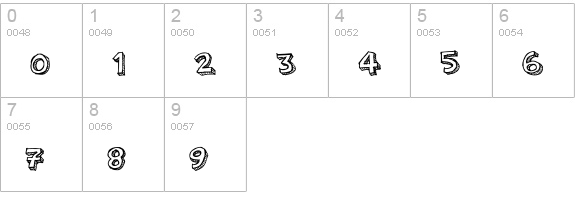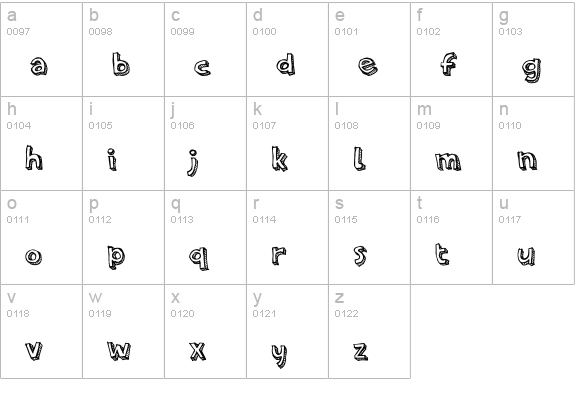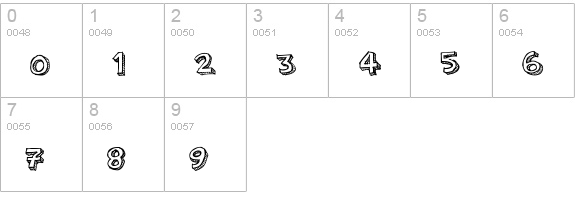
PFAmateur-LineShadow is a charming and versatile display font that adds a touch of elegance to any project. Its unique design features delicate lines creating a shadow effect, giving your text a stylish and sophisticated look. This font is perfect for a wide range of creative projects, from invitations and posters to logos and branding. The best part? PFAmateur-LineShadow is completely free to download at FontsMarket.com. So you can add a touch of class to your designs without breaking the bank. Don't miss out on this amazing font that will elevate your creations to the next level. Download PFAmateur-LineShadow today and let your creativity shine!